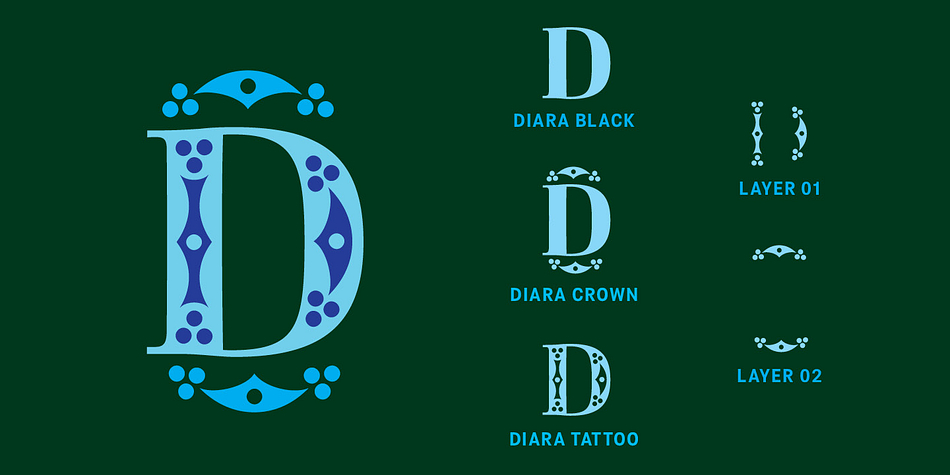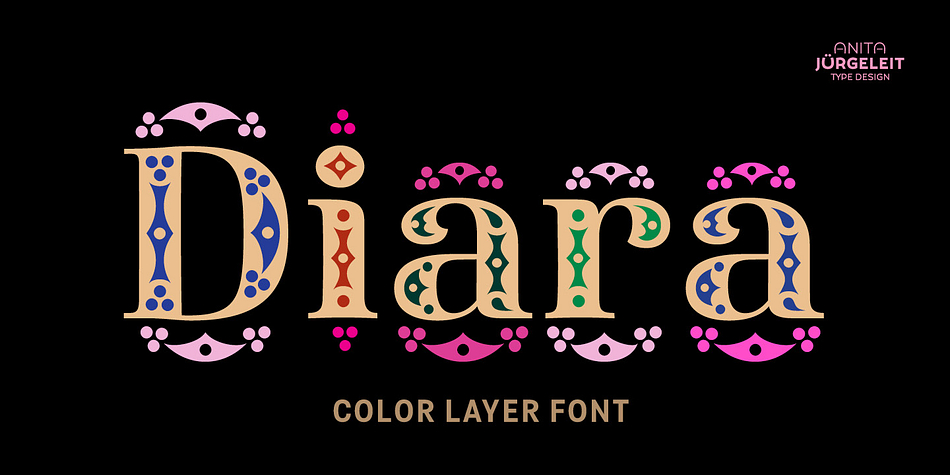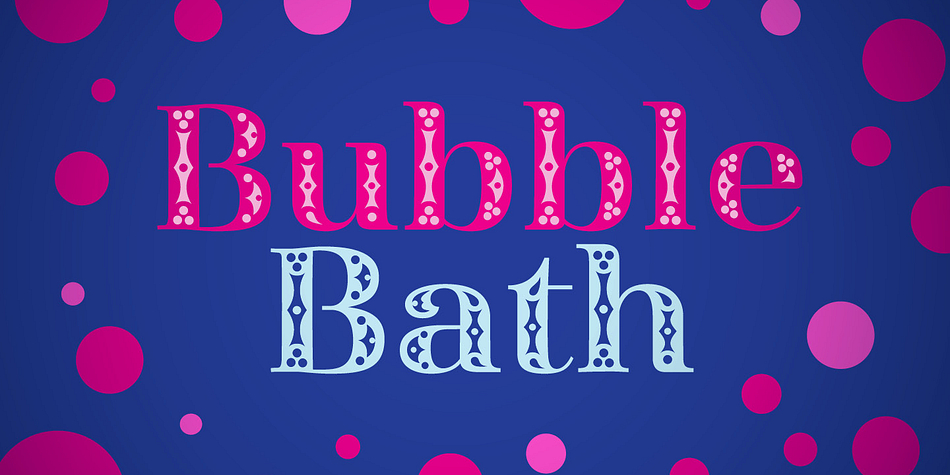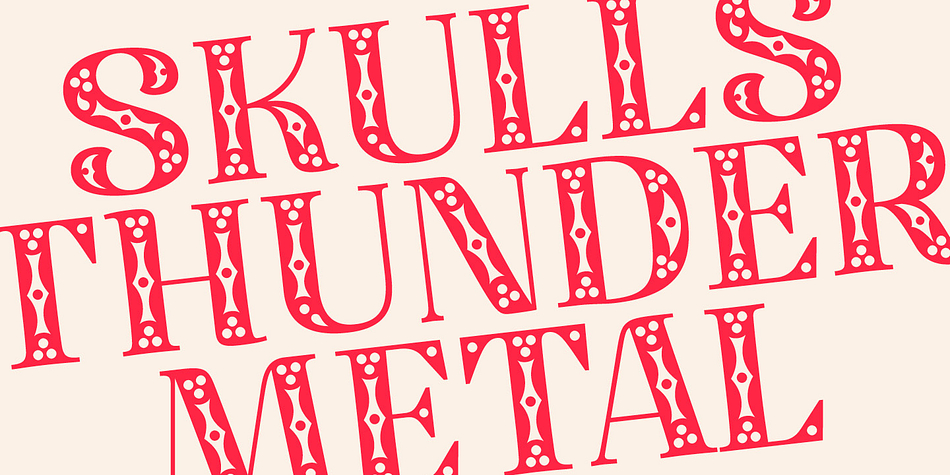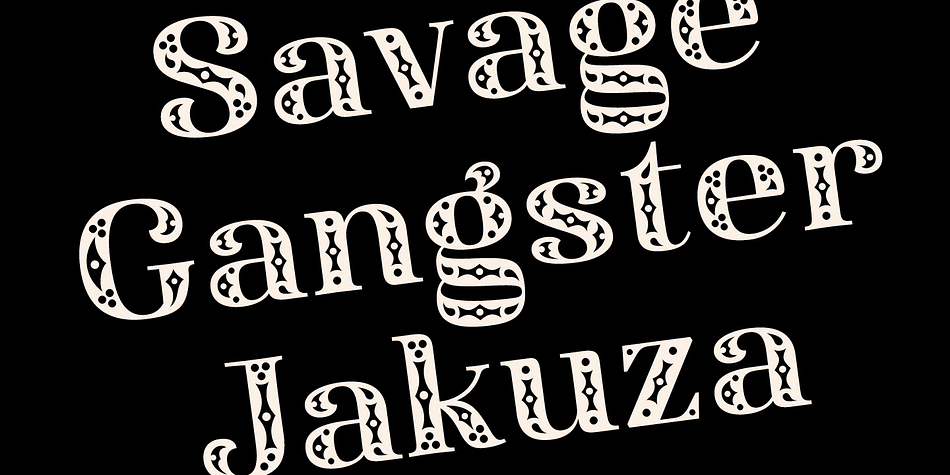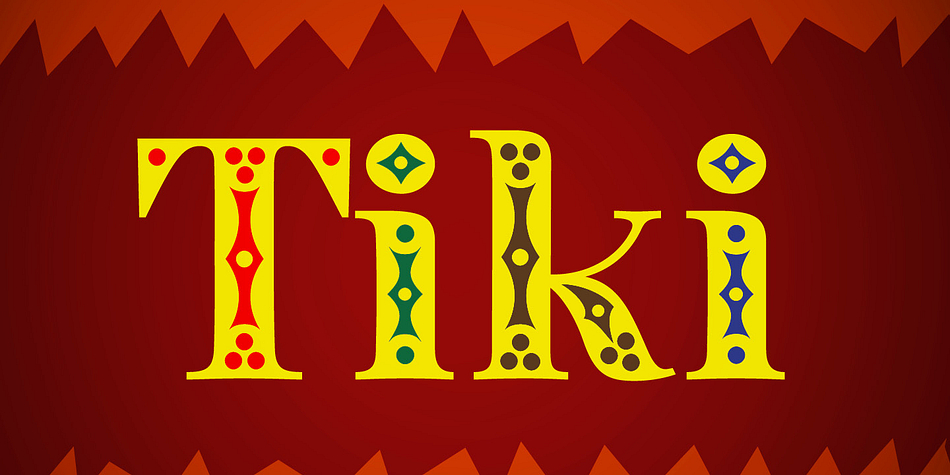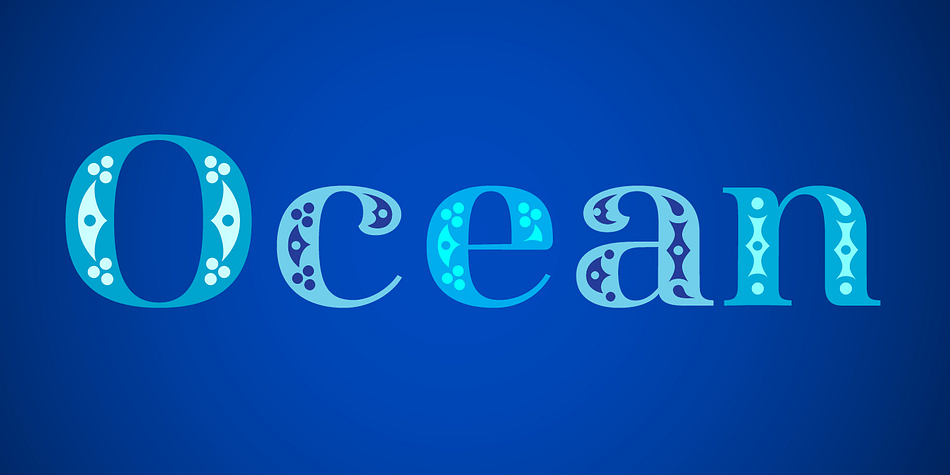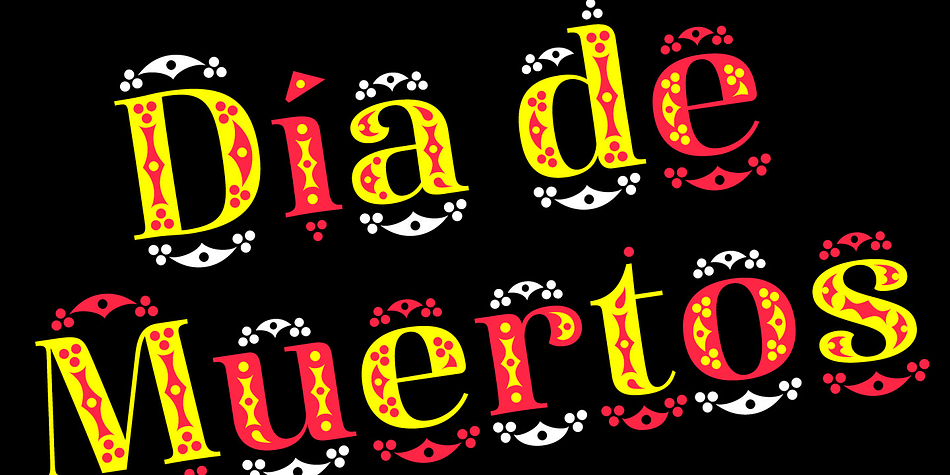
Diara
Designed by Anita Jürgeleit, Diara is a display sans, display serif and dingbat font family. This typeface has seven styles and was published by Anita Jürgeleit.
Welcome to meet Diara – The most colorful layer font you’ve seen in ages.
The indigenous inspired ornament pattern lets you create extraordinary eyecatching typography in headlines, tattoos, book covers or events like the Mexico’s Día de Muertos, the Day of the Dead.
Bring Diara to life with any palette of intense colors you can imagine. Whether you use it for print or social media like Instagram, Facebook or Twitter… your posts will look absolutely amazing.
Simply position the layer fonts over Diara Black or use the ready-to-look-great styles Diara Crown and Diara Tattoo. Diara supports a broad latin language support.